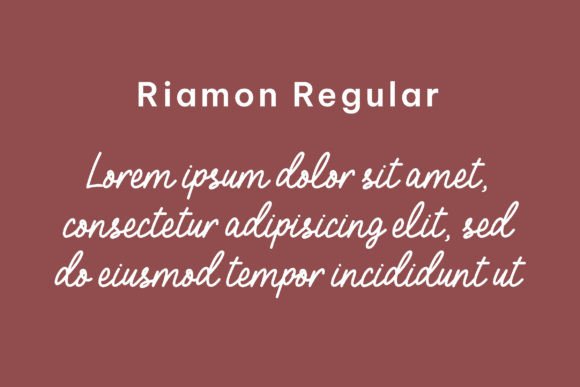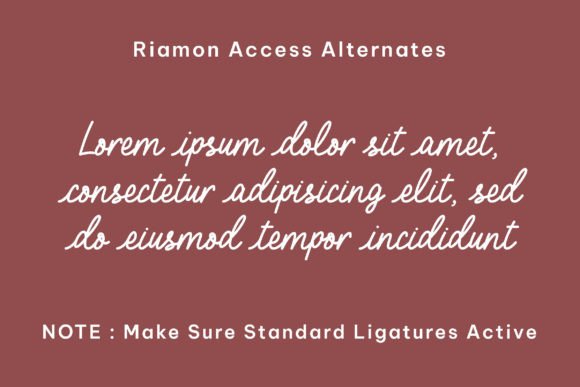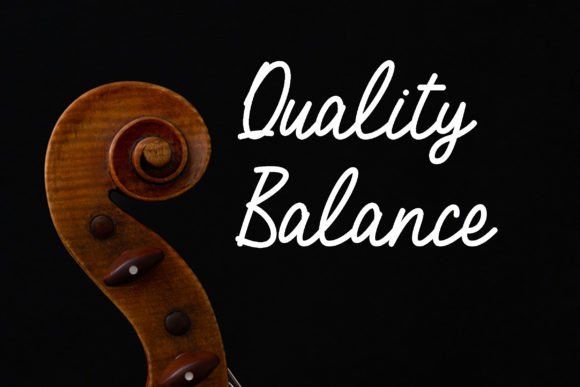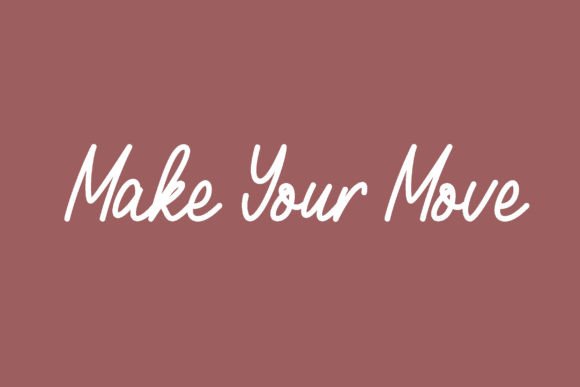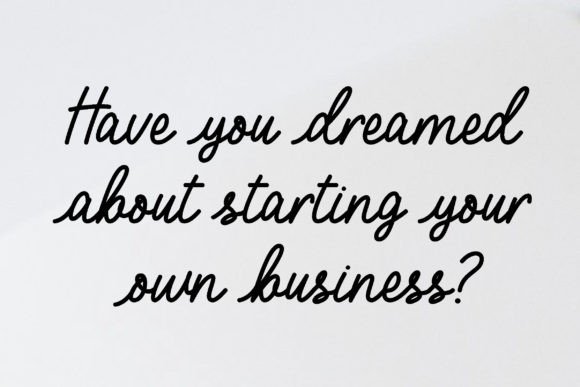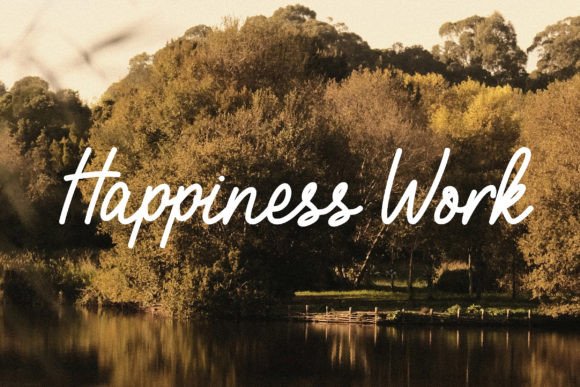
Introduction to Riamon Font
Do you remember the thrill of discovering a new design resource that perfectly captures the essence of your creative project? For designers, it’s a moment that can spark inspiration and elevate our work to new heights. That’s exactly what happened when we stumbled upon the Riamon Font – a classy, minimalistic script font that’s full of character and a few delightful twists.
With its clean, monoline aesthetic and the originality of handwriting, Riamon Font is a game-changer for designers seeking a high-quality, free download that can add a touch of sophistication to their work. The font’s PUA encoding makes it incredibly easy to access all the glyphs and alternates, ensuring seamless integration into any creative project.
Whether you’re working on a branding project or a digital design, Riamon Font is a valuable addition to your design arsenal. Its transparent background and versatility make it perfect for designers who crave a high-quality, reliable resource that can deliver consistent results.
Key Features of Riamon Font
- Unique characteristics include elegant lines and a modern aesthetic
- Perfect for use in graphic design, web design, and other creative endeavors
Honest Review: Riamon Font
I recently had the opportunity to work with the Riamon Font on a creative project and I must say, I’m impressed. This design resource is a great addition to any designer’s toolkit.
What Works Well:✨
- High-quality glyphs and characters that are perfect for titles and headings.
- The transparent background allows for seamless integration into any design, making it a versatile choice.
- The font is well-suited for a wide range of creative projects, from branding and logos to editorial and publishing designs.
Limitations:⚠️
One potential limitation of the Riamon Font is its limited character set. While it’s perfect for titles and headings, it may not be suitable for large blocks of text.
Overall, I’m extremely pleased with the Riamon Font and would highly recommend it to designers looking for a high-quality, free download for their next creative project.
Tips for Getting the Most Out of Riamon Font
Experiment with different font sizes and colors to find the perfect combination for your design. Use the Riamon Font in conjunction with other high-quality design resources to create a cohesive and visually appealing creative project. Don’t forget to adjust the font’s transparency to achieve the desired effect.
The Riamon Font is perfect for a variety of creative projects, including logos, graphics, and typography. It’s also great for adding a professional touch to presentations, documents, and websites. With its high-quality design and transparent background, the Riamon Font is a valuable addition to any design resource library.